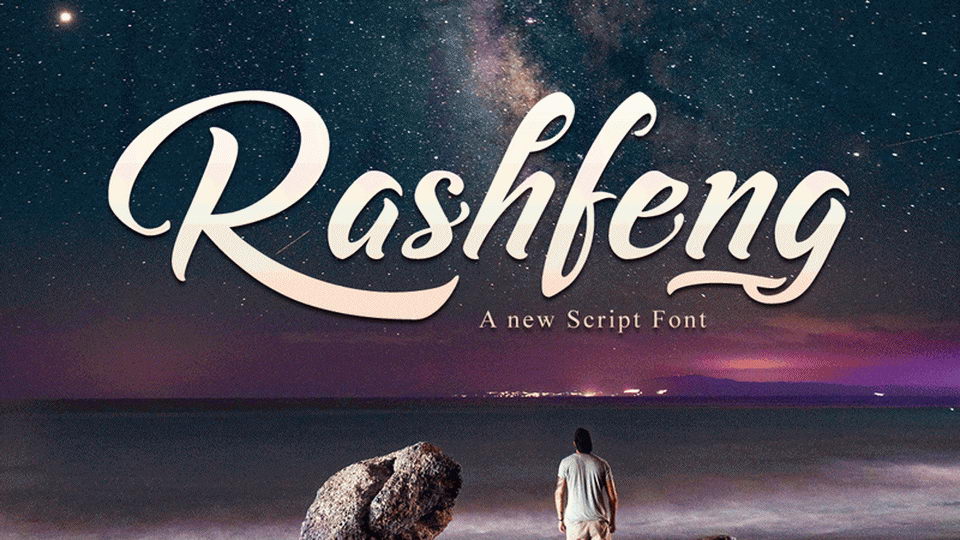
Rashfeng is a beautiful script with a lovely stylish, modern handwriting with many alternatives. You are welcome to use it, suitable for various purposes: logo, signatures, corporate symbol, wedding invitation, title, creative, t-shirt, business card, letterhead, nameplate, headings, label, poster, news, badge, cutting, hot stamping, quotation, etc.